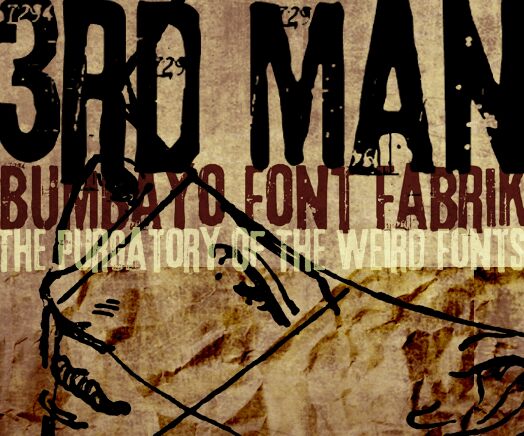
3rdMan by Bumbayo is a free eroded display font built from towering, tightly packed capitals. Broad, blunt strokes give the lettering a forceful block silhouette, and scattered chips, scratches, and worn edges make it resemble inked type weathered through repeated printing and rough handling over time.
A concert poster is its strongest setting, since the compressed forms and battered surface echo photocopied punk and metal graphics seen around underground music venues. Merchandise, skate graphics, and gritty game artwork are equally credible uses.
3rd Man is a Grotesk font by Bumbayo Font Fabrik.